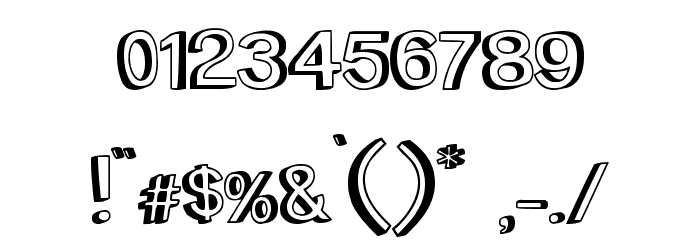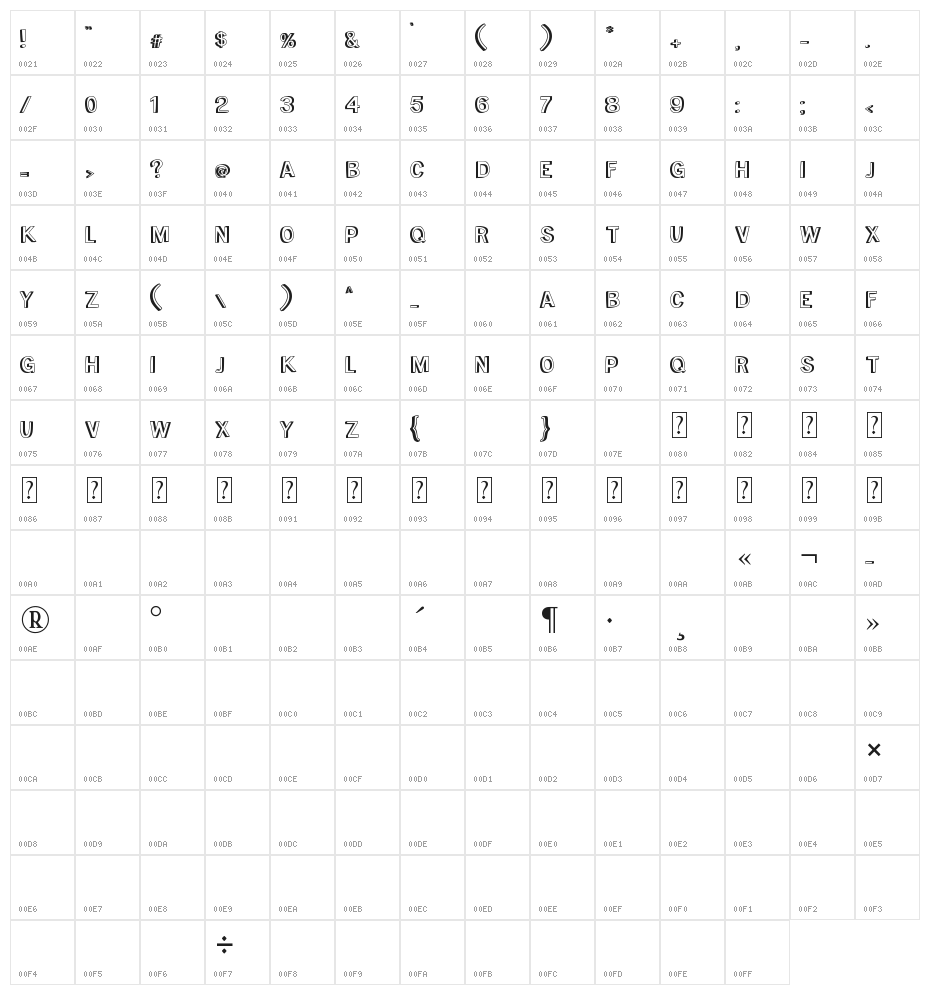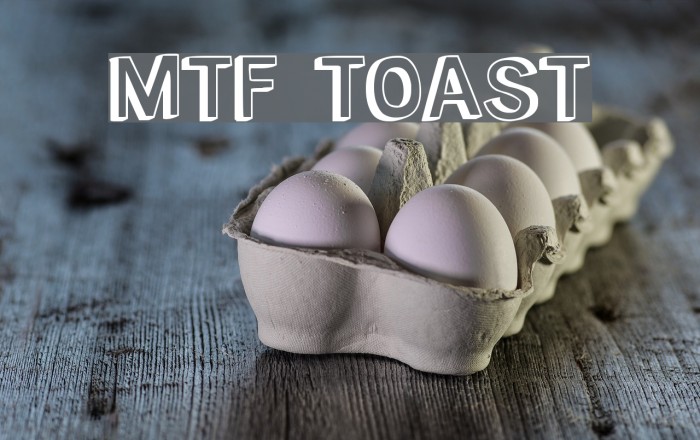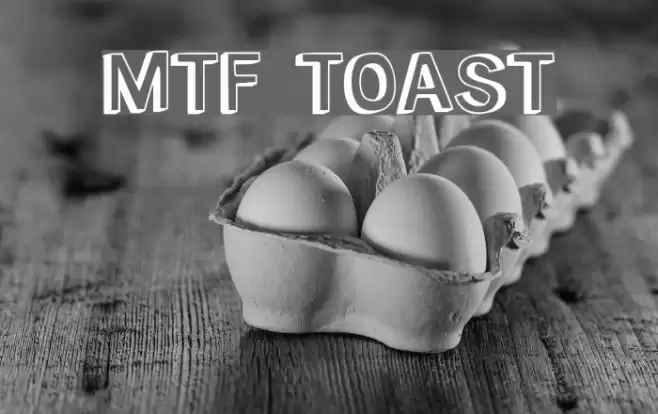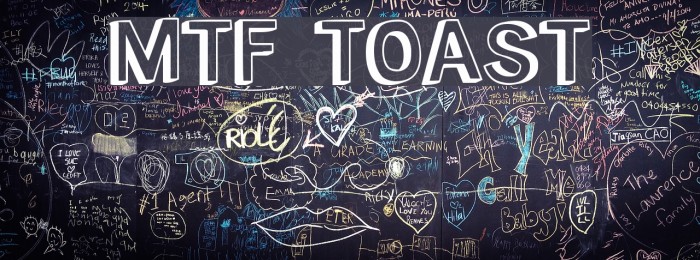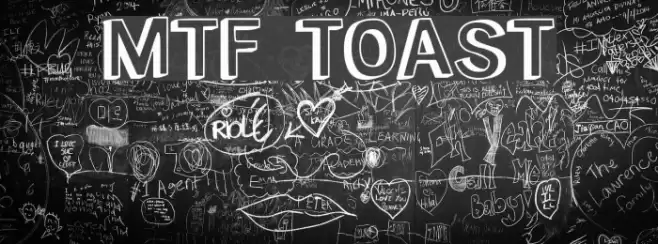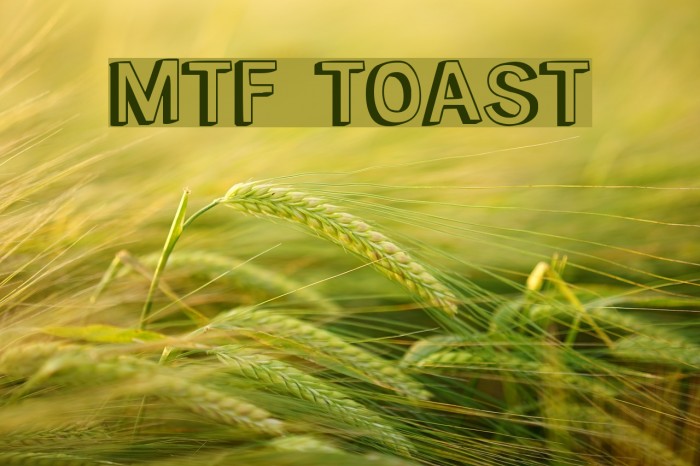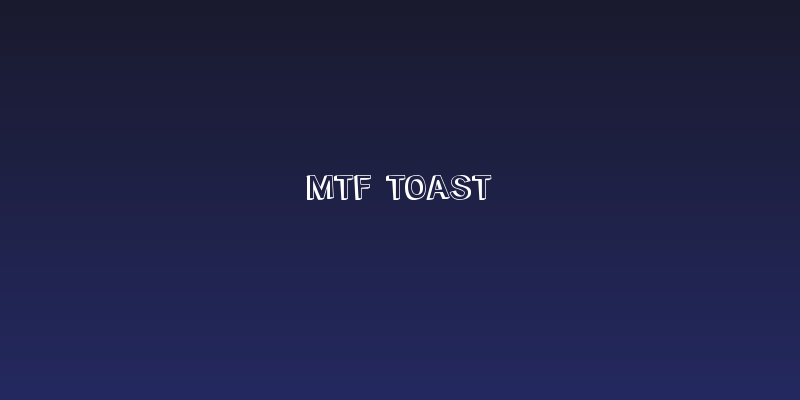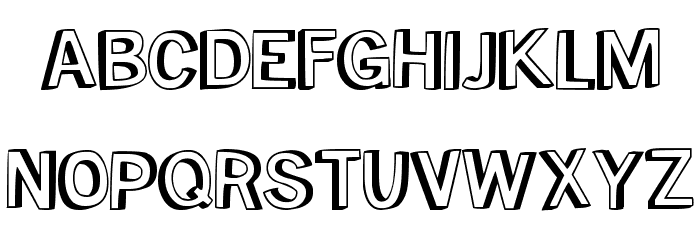
MTF Toast Font
MTF Toast Description
This font features a bold, playful design with a distinct outline that gives it a three-dimensional effect. The uppercase letters are evenly spaced and maintain a consistent height, providing a balanced and structured appearance. The numbers and special characters follow the same style, ensuring uniformity across all elements. The font's boldness and unique outline make it stand out, making it suitable for eye-catching designs. Its clear and legible form ensures readability while adding a touch of creativity and fun.